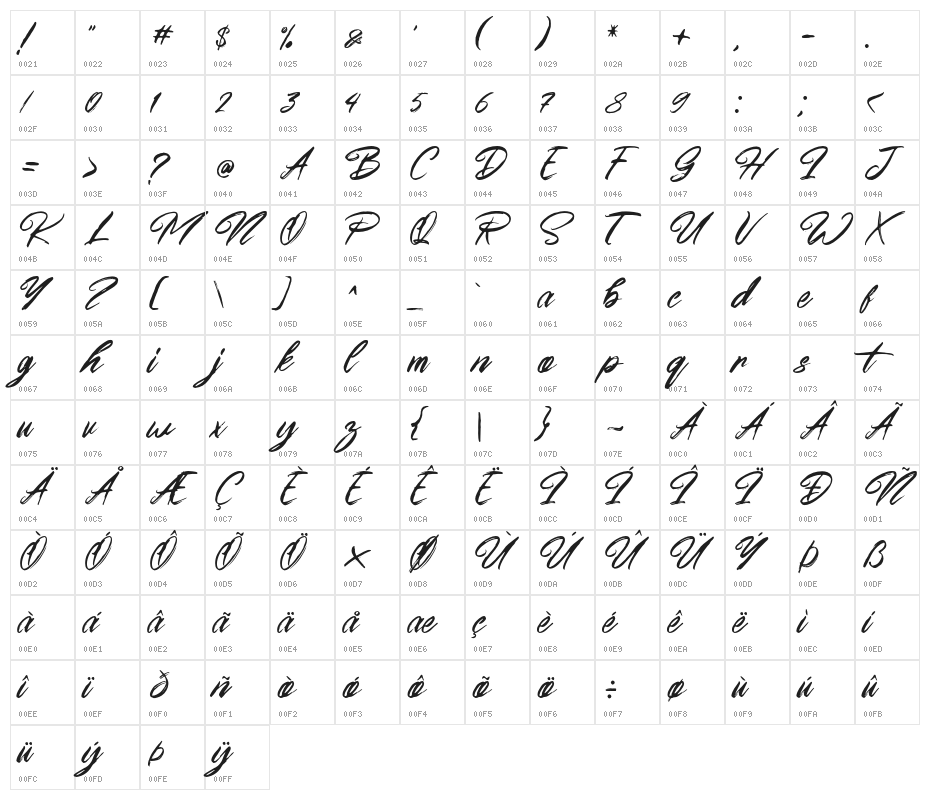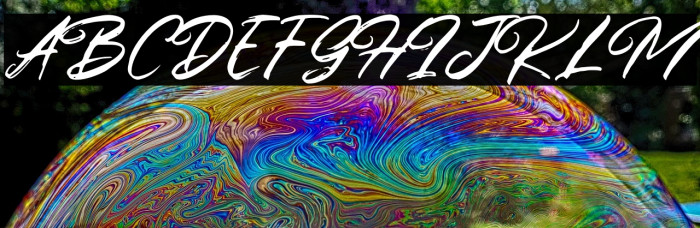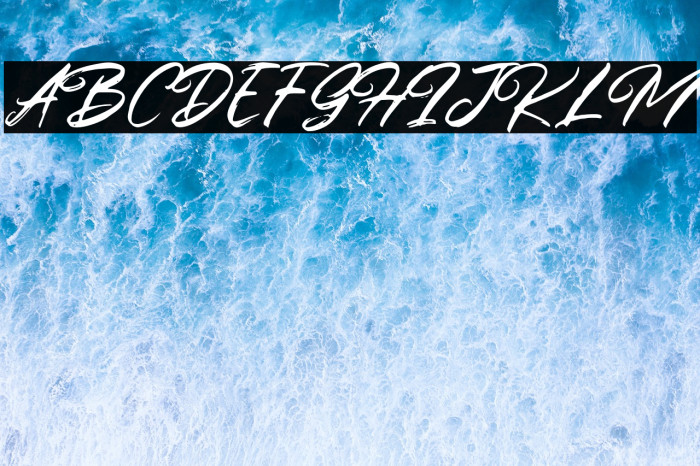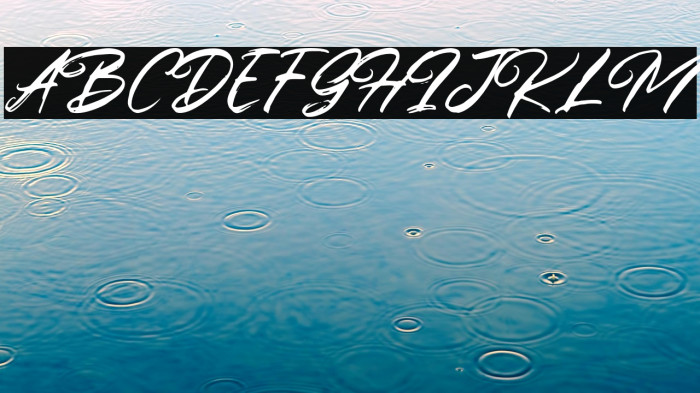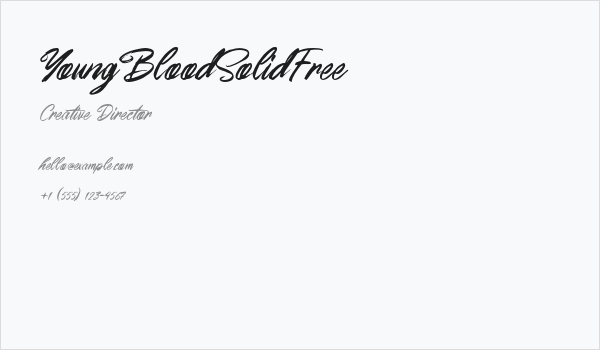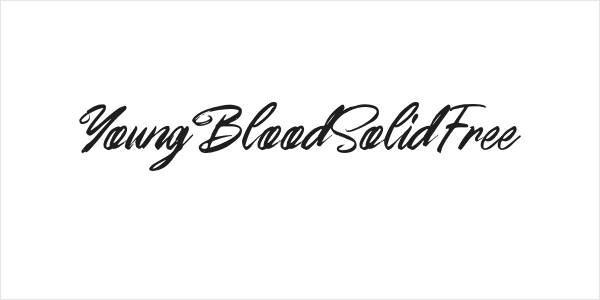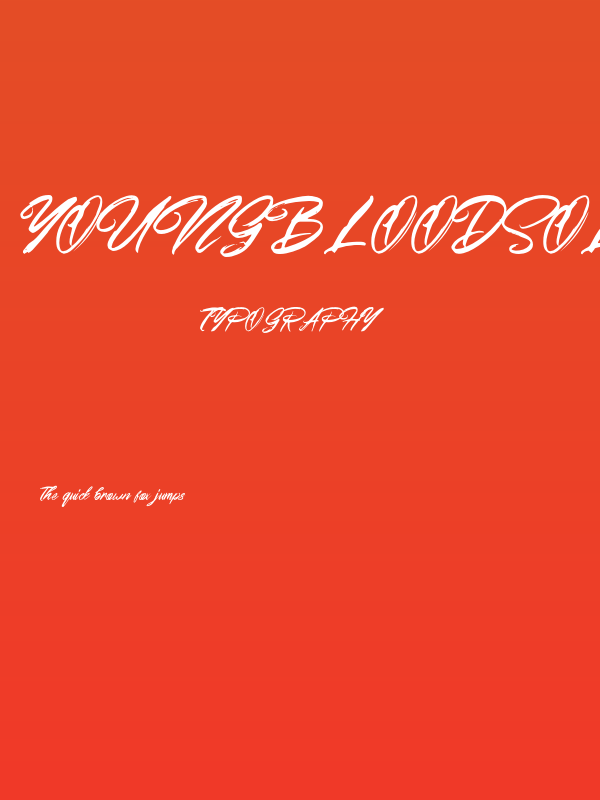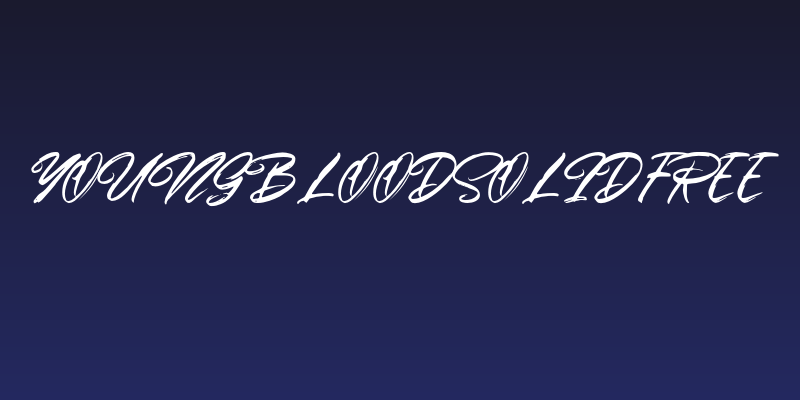
YoungBloodSolidFree Font
YoungBloodSolidFree Description
This font features a bold, expressive script style with a dynamic and energetic flow. The characters are connected, giving it a handwritten appearance that is both stylish and modern. The uppercase letters are slightly more formal, while the lowercase letters exhibit a more casual, fluid motion. The numbers and special characters maintain the same lively and bold characteristics, making them stand out. The strokes are thick and consistent, providing a strong visual impact. This font is ideal for projects that require a personal touch or a statement piece.
Use CaseLogos, Headlines, Invitations
Proposed ProjectsIdeal for branding, logos, invitations, posters, and any design requiring a personal, artistic touch.